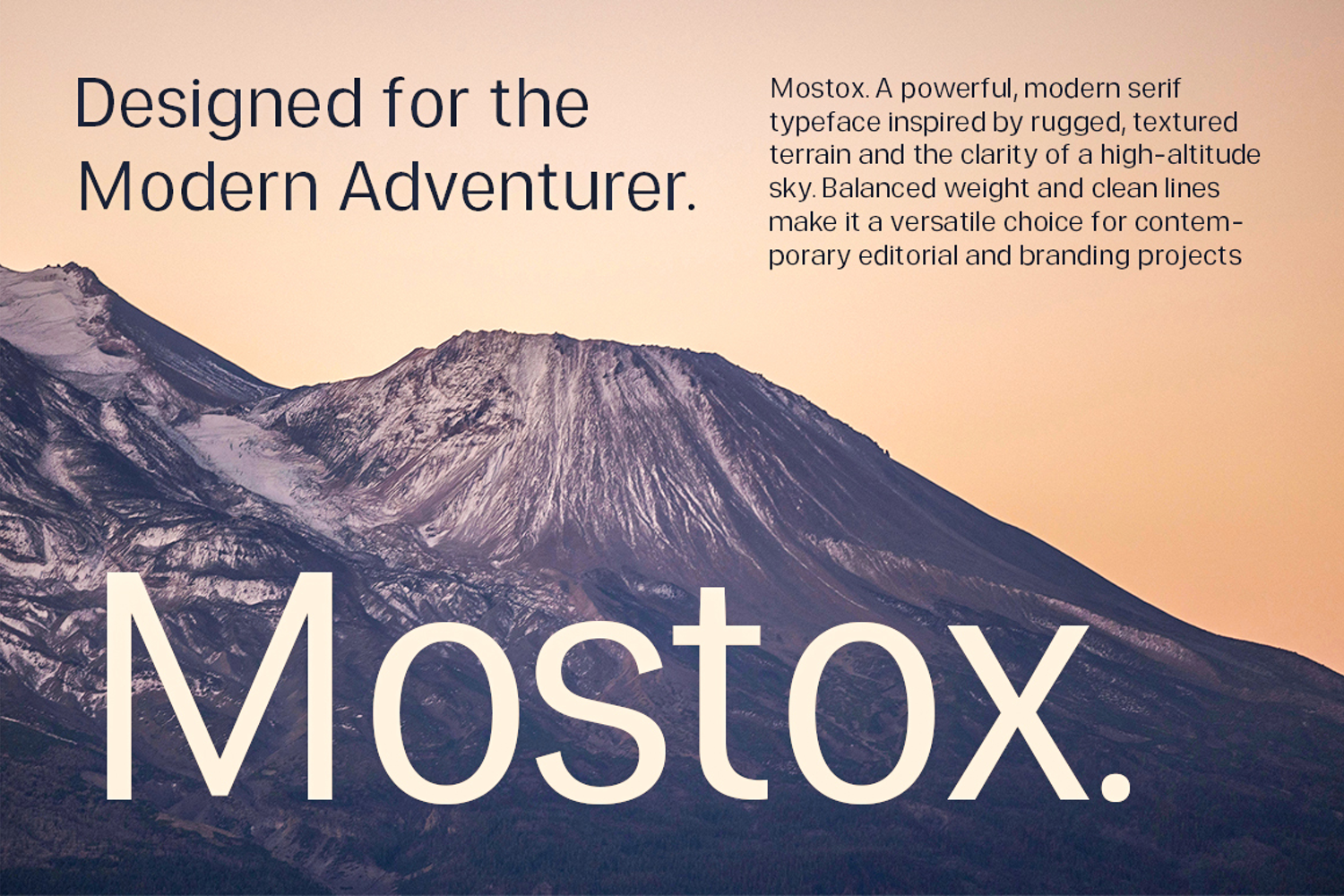
Mostox
Mostox-SemiExpanded Italic
Mostox SemiExpanded
Mostox is a powerful and modern serif typeface meticulously designed for contemporary branding, editorial projects, and creative designs inspired by rugged, textured terrains and high-altitude skies. With its perfectly balanced weights, clean lines, and striking high-contrast structure, this versatile font commands attention while maintaining exceptional readability across both prominent headlines and detailed body text.